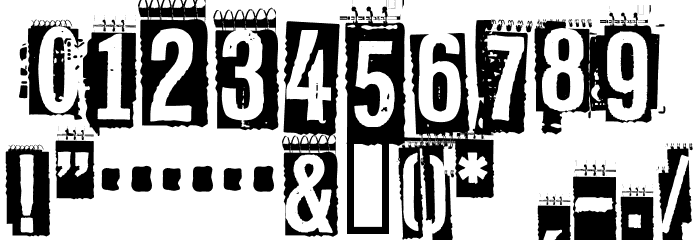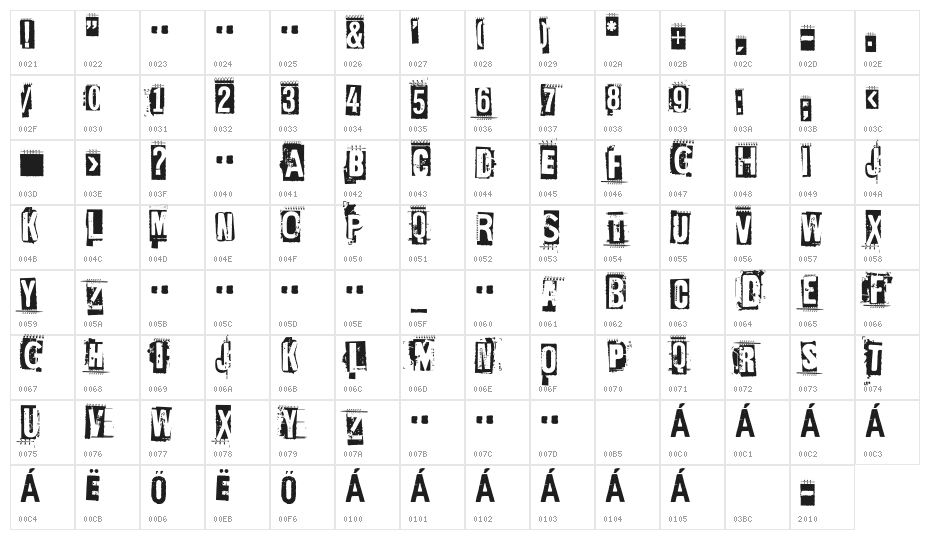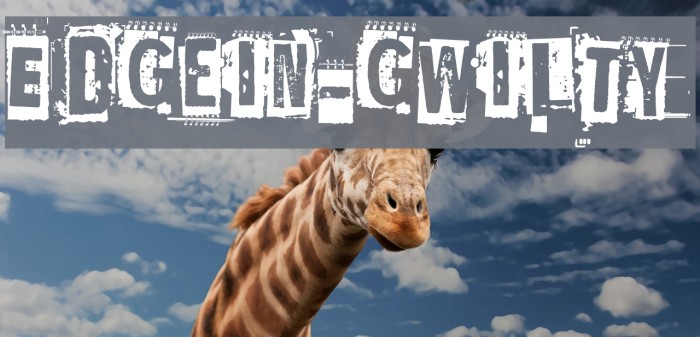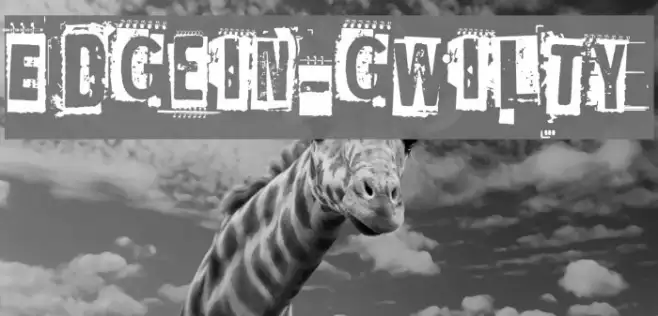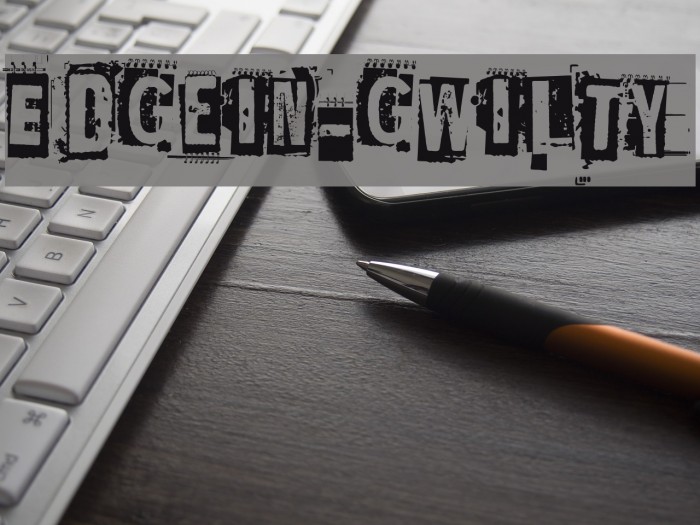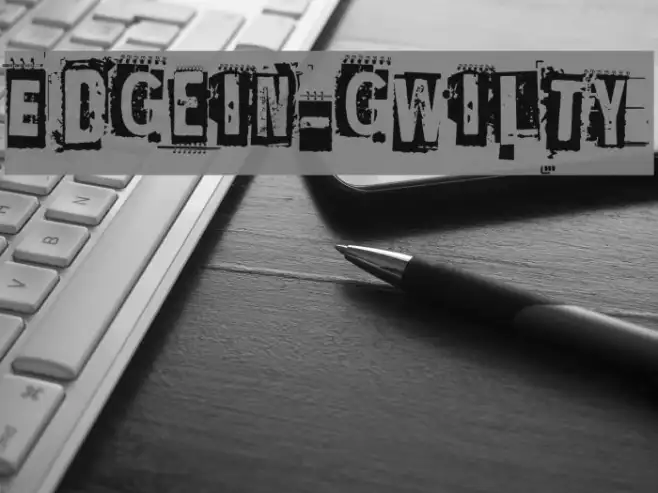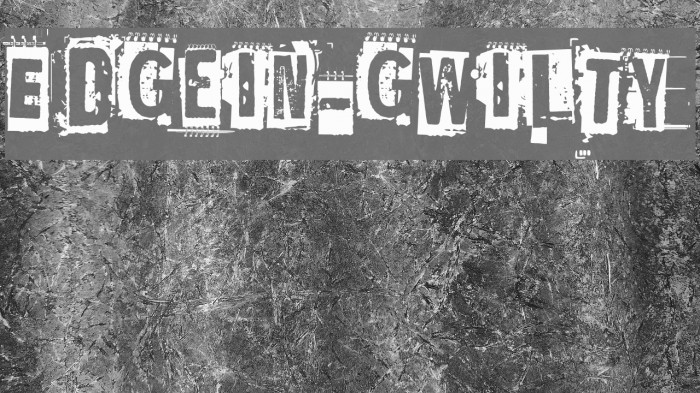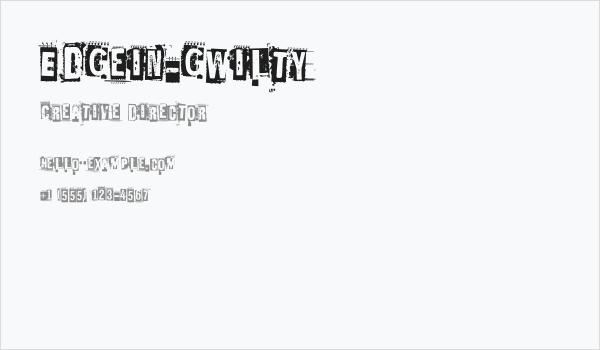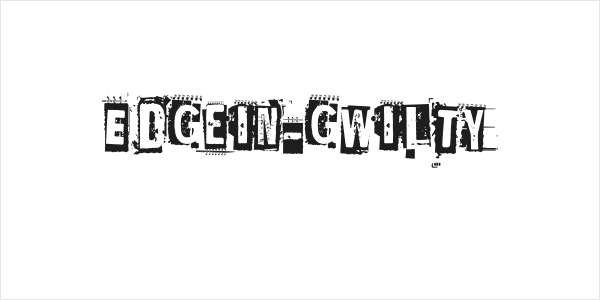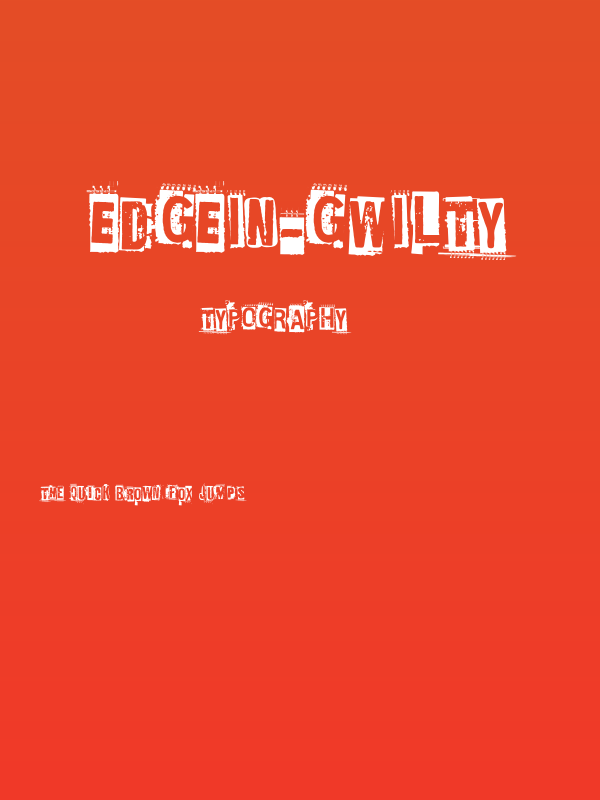
EdGein-Gwilty Font
EdGein-Gwilty Description
This font features a bold, distressed style with a grunge aesthetic. Each character appears as if it has been stamped or printed with imperfections, giving it a rugged and edgy look. The uppercase and lowercase letters, along with numbers and special characters, all share this distressed texture, making it ideal for projects that require a raw, urban feel. The font's design is reminiscent of old typewriter keys or newspaper clippings, adding a vintage yet rebellious vibe. Its unique appearance makes it stand out, perfect for creating eye-catching headlines or artistic designs.
| Overall Style | Grunge, Vintage |
| Use Case | Headlines, Artistic designs, Branding |
| Proposed Projects | Ideal for album covers, posters, streetwear branding, and edgy graphic design projects. |